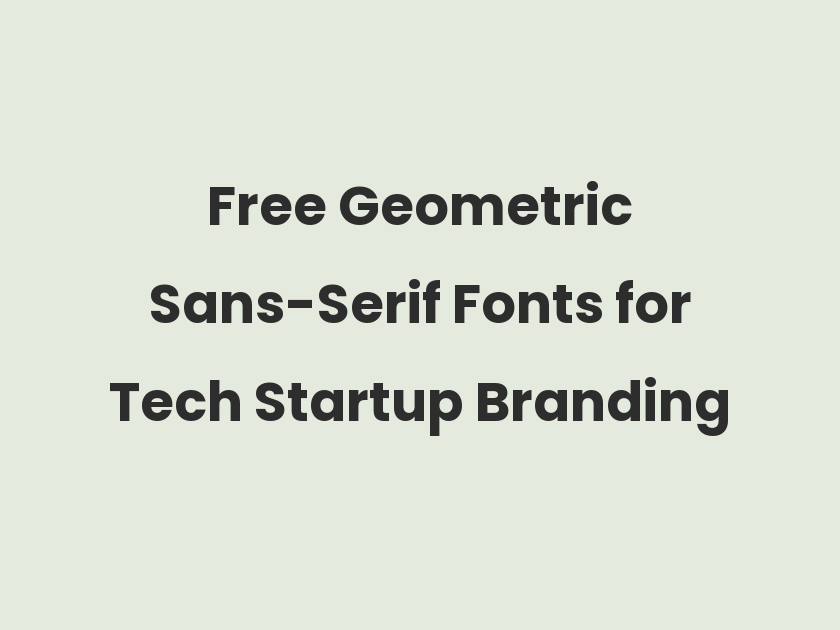
68 Best Free Geometric Sans-Serif Fonts for Tech Startup Branding
Geometric sans-serif type is the visual shorthand of the tech industry: circles for bowls, monolinear strokes, and a sense of engineered precision that reads as confident and modern. Startups have leaned on this style for decades, from the Futura-inspired wordmarks of early software companies to the rounded, friendly geometrics favored by today’s app-first brands. The good news is that you no longer need a paid license to get that look; Google Fonts now hosts dozens of excellent geometric and geometric-adjacent sans-serif families that cover everything from a pitch deck to a full product interface.
Whether you’re naming a fintech app, building a SaaS dashboard, or just need a free alternative to Futura or Century Gothic for a logo, there’s a genuinely strong option here for nearly every stage of a startup’s life, from seed round to IPO.
Poppins is probably the most recognizable geometric sans on the web right now, and for good reason. Its perfectly round o’s and consistent stroke widths give it a friendly, almost stamped-out precision that feels equally at home on a landing page hero and inside a mobile app’s navigation bar.
It pairs beautifully with a serif for editorial contrast, but plenty of startups simply use two Poppins weights and call it a day.
Inspired by the lettering on old Buenos Aires street signage, Montserrat brings a slightly warmer, more humane geometry than some of its stricter peers. It’s become something of a default choice for startup marketing sites, so consider it if you want a safe, tested, unmistakably professional feel rather than something that stands out from the crowd.
Raleway trades some of the boxiness of true geometric construction for a thin, elegant single weight at its core, making it a favorite for design-forward startups that want to look more boutique studio than enterprise software vendor. It gets a little fragile at very small sizes, so reserve the lighter weights for headlines.
Rounded terminals soften every letter here, giving Quicksand a approachable, consumer-app energy rather than a corporate one. It suits wellness, education, and lifestyle startups far better than fintech or enterprise B2B tools.
Comfortaa pushes the rounding even further than Quicksand, with looped, almost bubble-like letterforms. Use it sparingly, in logotypes and short headlines, since its softness can read as imprecise in dense body copy.
Questrial
If you came looking for a free Century Gothic alternative, Questrial is one of the closest matches on Google Fonts: wide, perfectly circular counters and a single confident weight. Its lack of weight variation is a real limitation for interface work, but as a display face for a startup’s homepage it looks expensive.
Jost is a direct homage to 1920s geometric classics like Kabel, rebuilt with contemporary spacing and a full weight range. It has a slightly retro-futurist feel that suits startups leaning into a nostalgic or design-history-aware brand voice.
Rubik’s slightly rounded corners and near-monolinear strokes give it a friendly geometric character without tipping into cartoonish territory. It holds up well in both display sizes and UI text, which makes it a genuinely practical single-family choice for a product and its marketing site.
A newer addition to the geometric sans field, Outfit has quickly become popular in startup landing page templates for its crisp, evenly spaced letterforms and generous x-height. It reads as clean and current without any particular era attached to it.
Sora was designed with screens specifically in mind, and it shows in its tight, controlled curves and confident weight contrast at bolder cuts. It’s a strong pick for product UI where you need a geometric feel that still performs at small text sizes.
Manrope sits at the intersection of geometric and grotesque, with slightly squared curves that keep it legible in dense dashboards and data tables. Its variable font support makes it a favorite among startups building design systems that need many weights from one file.
It pairs naturally with a slab serif for editorial content, if the brand needs a second voice.
Commissioned originally for Google’s own design work, DM Sans has a low-contrast, geometric structure that feels tidy without being sterile. It’s become a go-to for SaaS marketing sites that want something more distinctive than the usual suspects but still safely neutral.
Space Grotesk takes the proportions of the monospaced Space Mono and reworks them into a proportional sans with just enough quirk in the letterforms, notably a slightly squared ‘a’ and distinctive ‘g’, to feel unmistakably techy. It has become something of a shorthand for developer tools and crypto brands, so be aware it now carries strong associations of its own.
Finally, test any candidate in your actual product, not just a mockup. A typeface that looks sleek in a logo can behave very differently once it’s rendering real usernames, prices, or error messages.
With this many genuinely free, genuinely well-made geometric sans options on Google Fonts, there’s little reason left to default to an overused stock choice. Download a handful, drop them into a real layout, and let your product’s personality, rather than habit, decide which one becomes your startup’s voice.